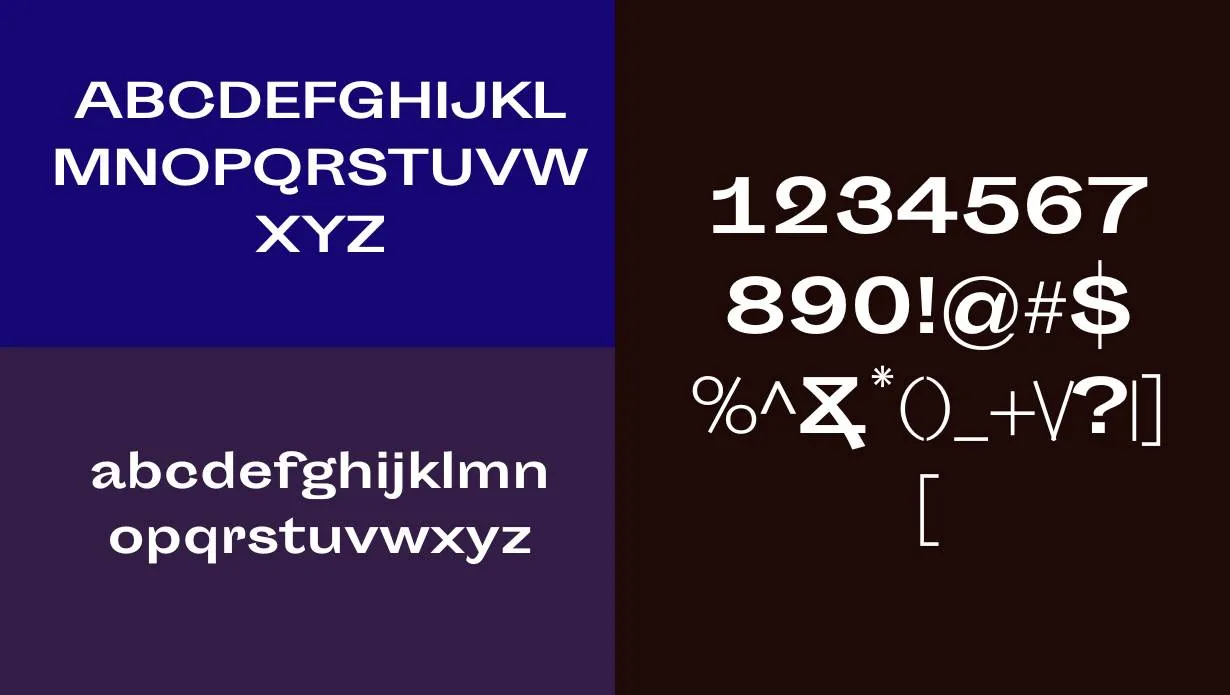
Sporting Grotesque Font is a clean and modern typeface, suitable for a wide range of design applications.
Its straightforward lines and well-balanced letterforms make it a practical choice for branding, web design, and packaging, providing a contemporary and organized aesthetic to your projects.
| Name | Sporting Grotesque Font |
| Designer | Lucas Le Bihan |